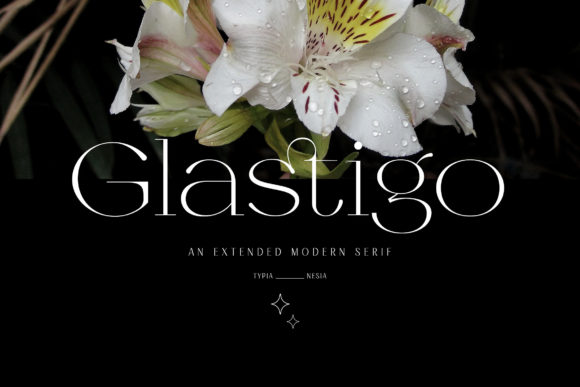
Introducing Glastigo Font - A Timeless Serif Font Steeped in Luxury and Style
In a world saturated with digital noise, your brand's voice needs to stand out like a radiant beacon in the night. Allow us to introduce Glastigo Font, a modern serif masterpiece crafted with meticulous care to elevate your branding endeavors to new heights of sophistication. This font speaks volumes, exuding an air of timeless elegance that will leave an indelible impression on your audience.
Born from the creative genius of Typia Nesia, Glastigo Font is a visual symphony of curves and lines, each stroke imbued with a distinct personality. Its refined details and graceful flourishes will add a touch of understated luxury to your designs, whether it's a resplendent logo, an eye-catching t-shirt design, or a creative product yearning for a unique voice.
Imagine your brand adorned with Glastigo Font's timeless charm. Picture your logo commanding attention, radiating an aura of sophistication that sets you apart from the mundane. Envision your t-shirt designs captivating the hearts of fashion-forward individuals, making a bold statement wherever they go. Elevate your creative products with Glastigo Font's timeless elegance, ensuring they stand out in a crowded marketplace.
The versatility of Glastigo Font is truly remarkable. Its innate ability to adapt seamlessly to a myriad of contexts is a testament to its inherent brilliance. Whether you're crafting an elegant invitation, designing a stunning poster, or creating eye-catching social media graphics, Glastigo Font will elevate your creations beyond the ordinary.